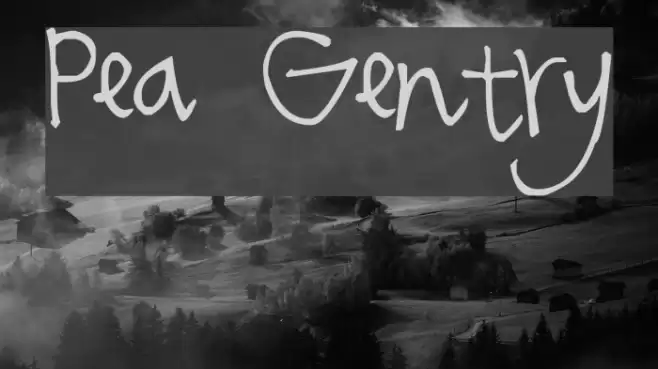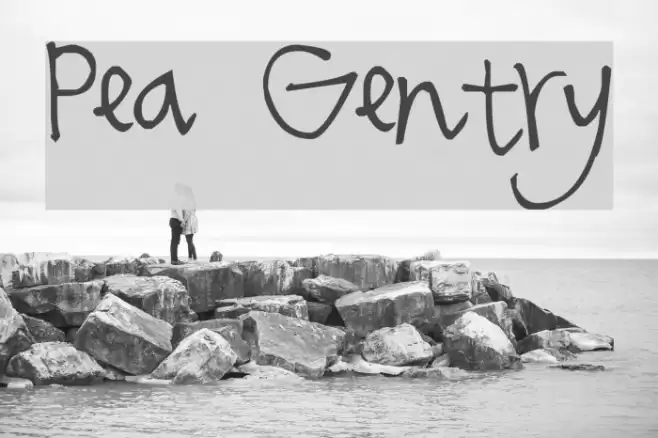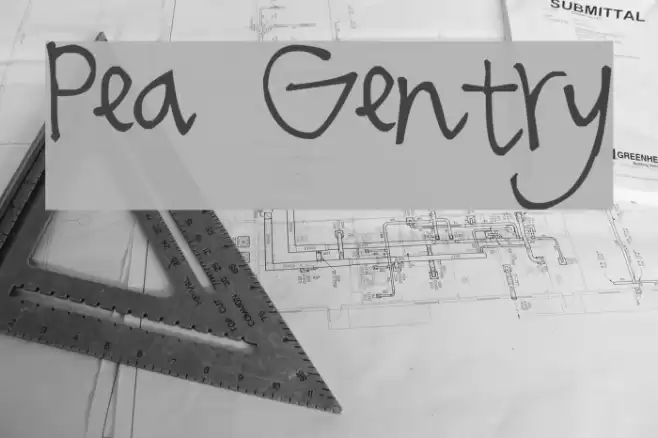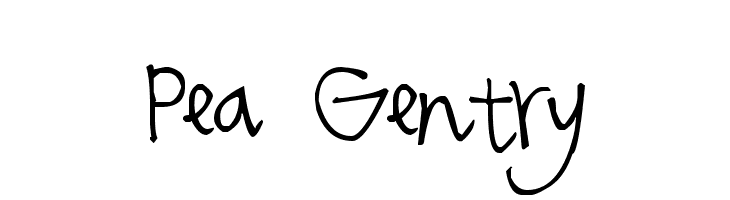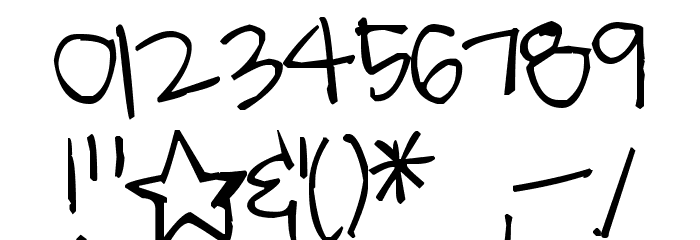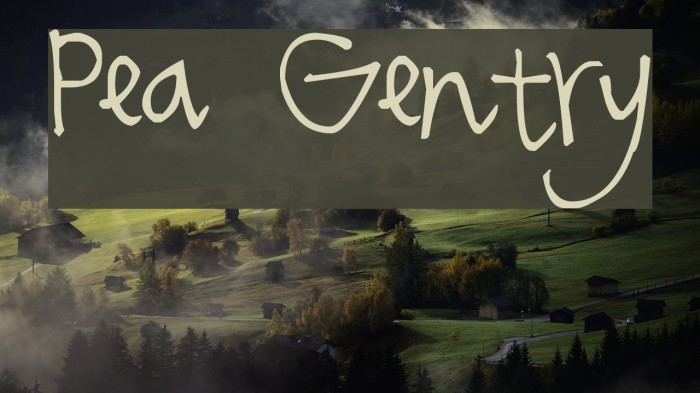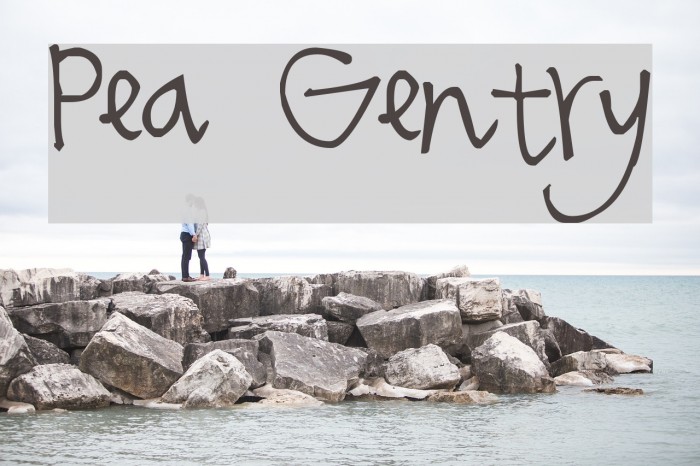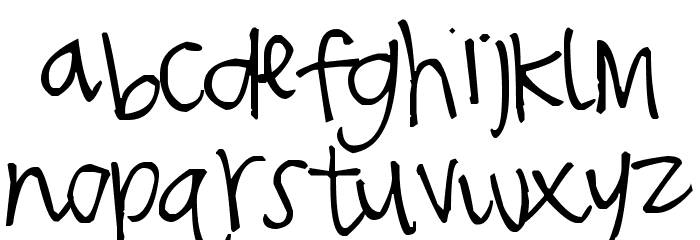
Pea Gentry Font
Pea Gentry Description
This font exudes a playful and informal vibe, characterized by its handwritten style. The letters are uneven and slightly tilted, giving it a casual and personal touch. The strokes are consistent in width, with a medium contrast that adds to its legibility. The uppercase and lowercase letters are distinct, with a noticeable difference in size and form. Numbers and special characters maintain the same playful style, making the font versatile for various uses. The overall appearance is friendly and approachable, suitable for projects that aim to convey warmth and creativity.
A playful, handwritten font with a casual and personal touch from Uncategorized fonts.
- Proposed Projects: Ideal for greeting cards, personal blogs, children's books, and creative branding.
- Overall Style: Casual
- Use Case: Headlines, Logos, Informal Text